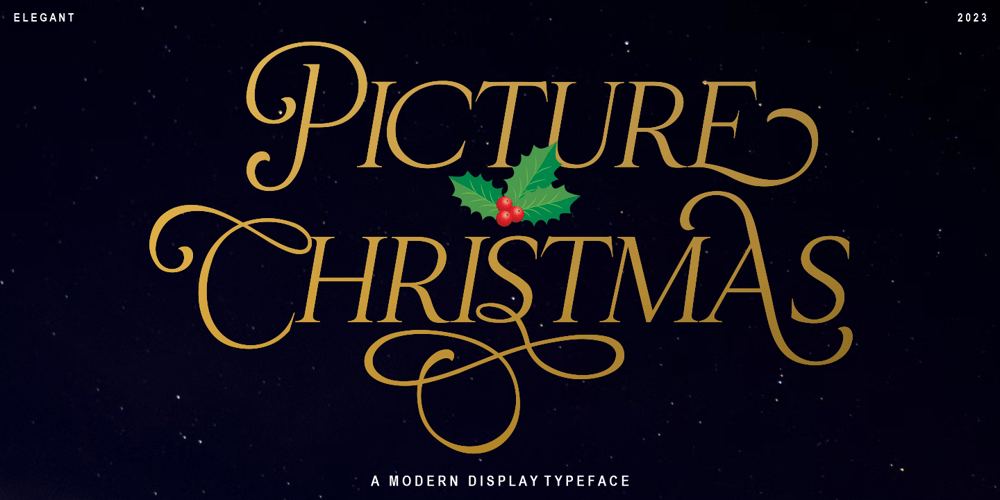
Christmas Picture Font Family was designed by Risca Anitawati and published by Reyrey Blue Std. Christmas Picture contains 1 styles and family package options. Introducing, Christmas Picture Typeface. A classical and fun serif italic version. It’s created specially for the Christmas Spirit.Christmas Picture is a great design choice this Xmas season for inspirational quote designs, logo designs, simple and classy Logos, web font, branding, product packaging, and much more. This font is PUA-encoded, which means you can easily access all of the glyphs!Features : All Uppercase and Lowercase Number & Symbol Supported Languages Stylistic Alternate PUA Encoded Hope you enjoy our font!